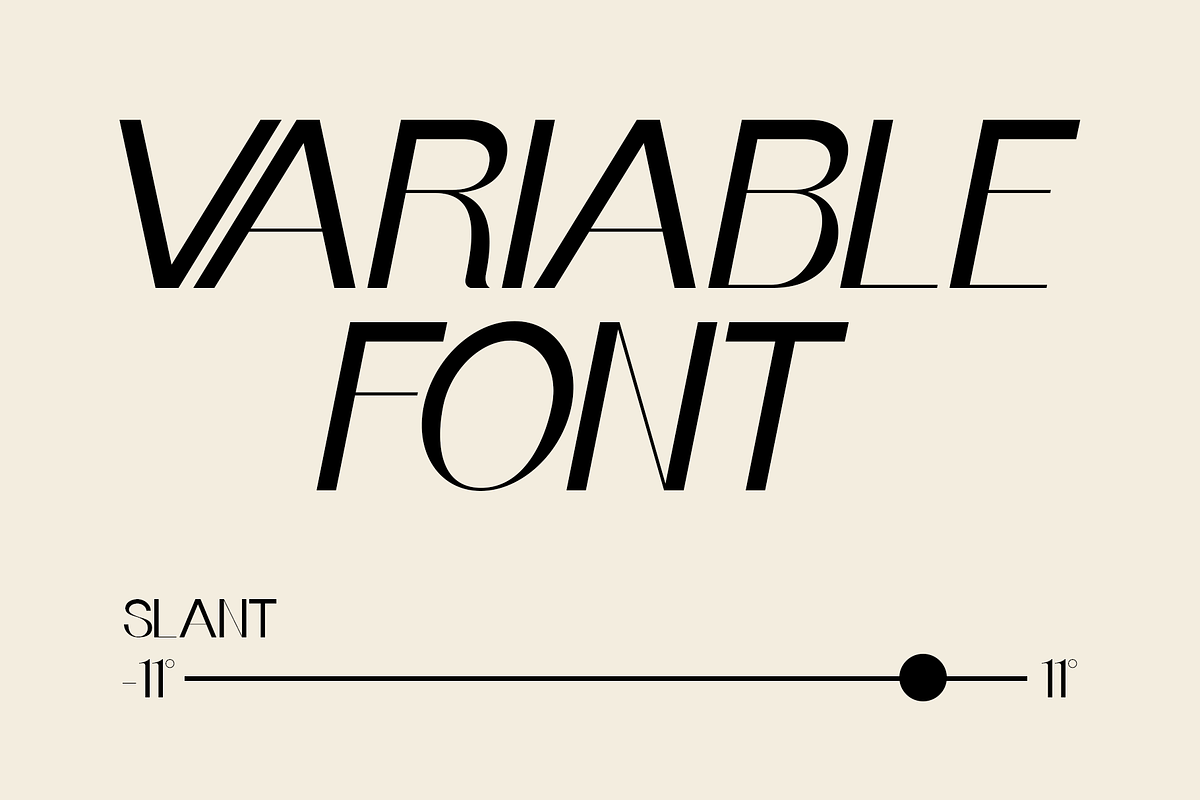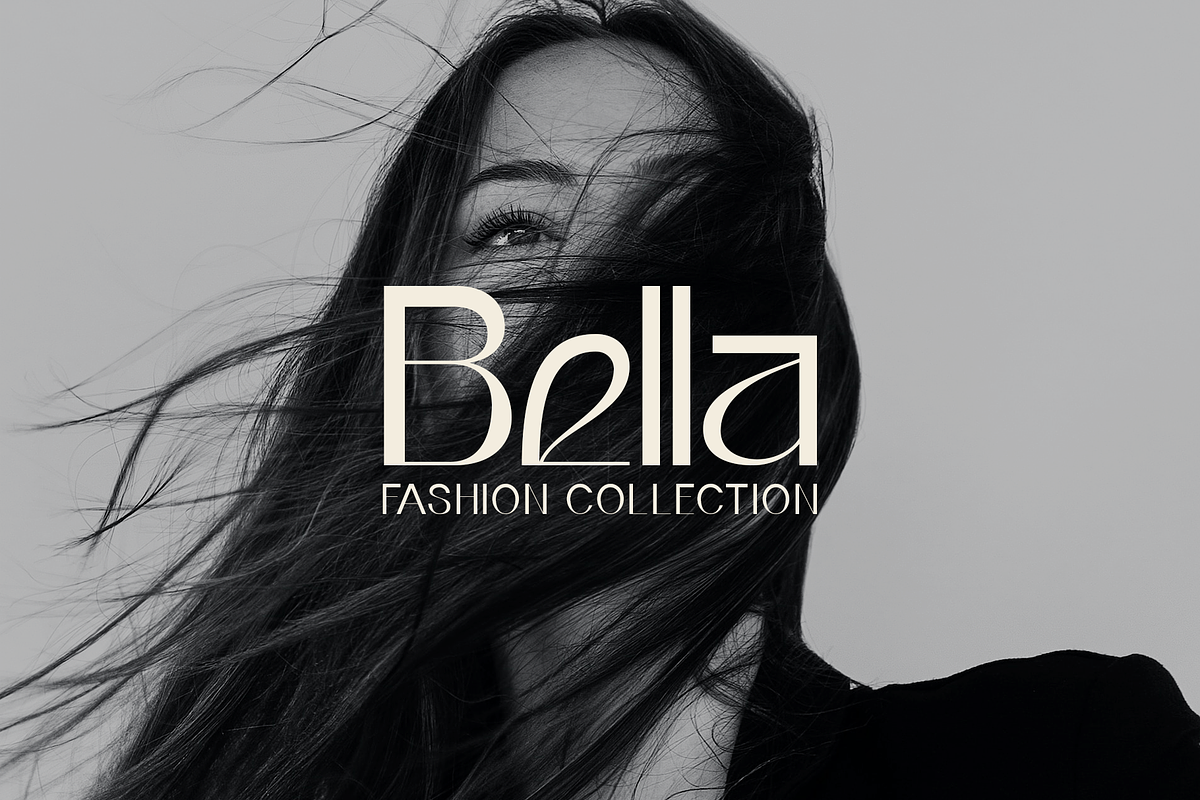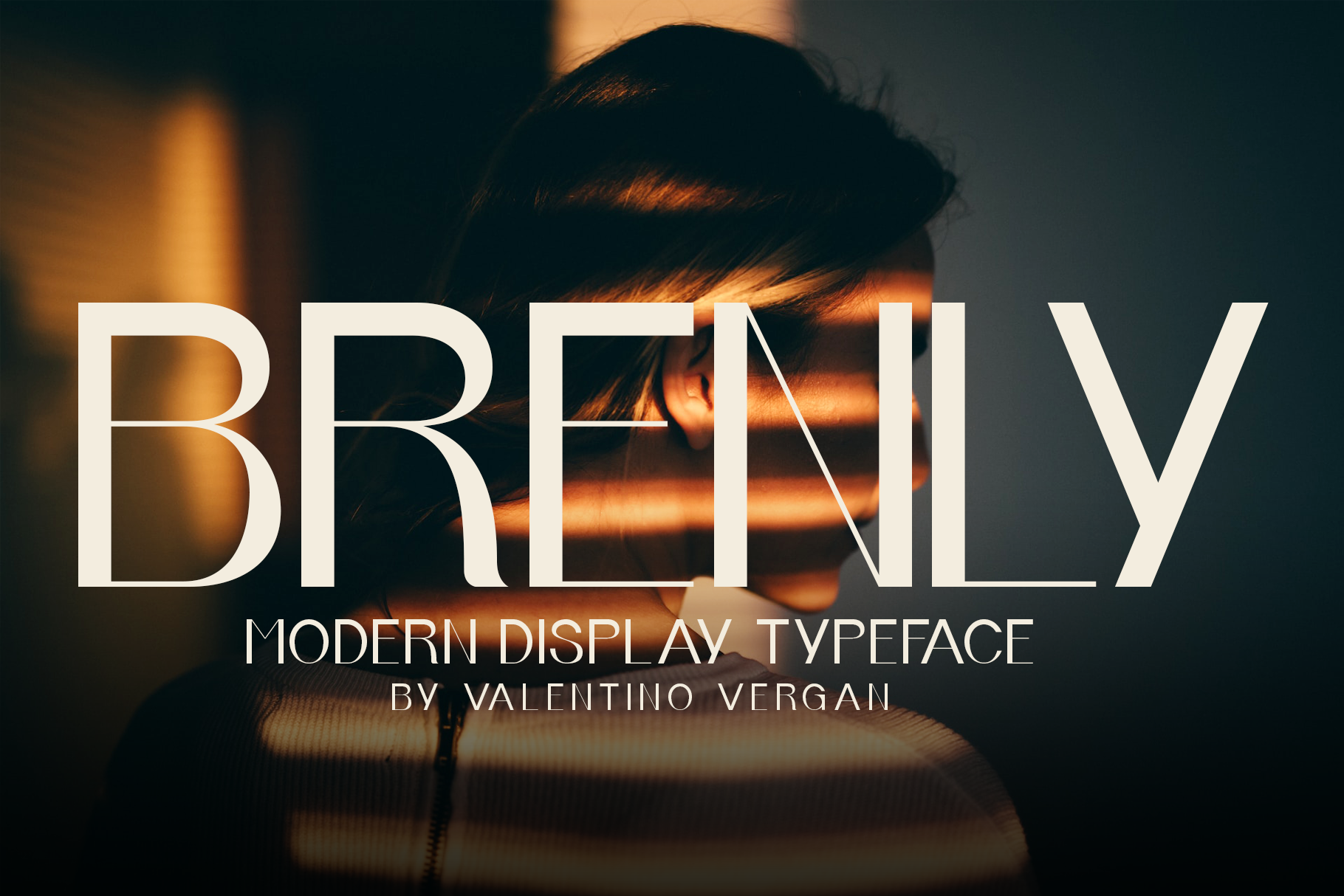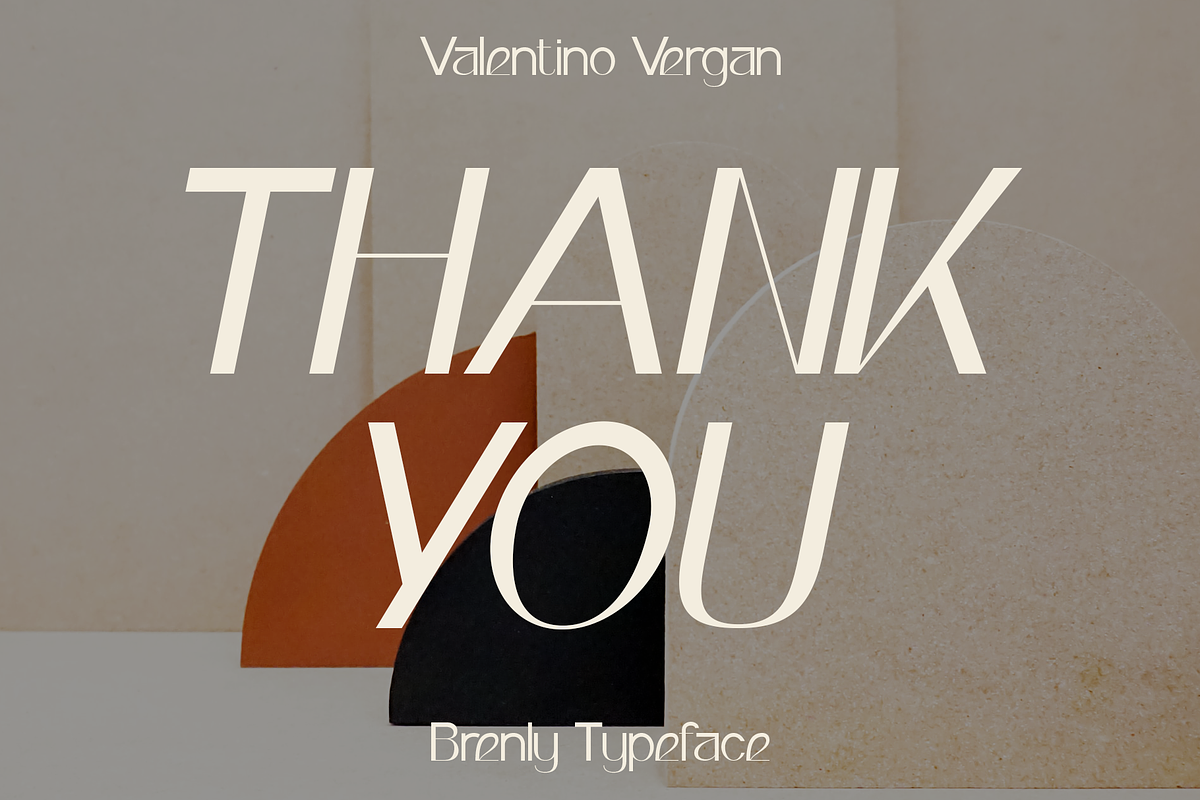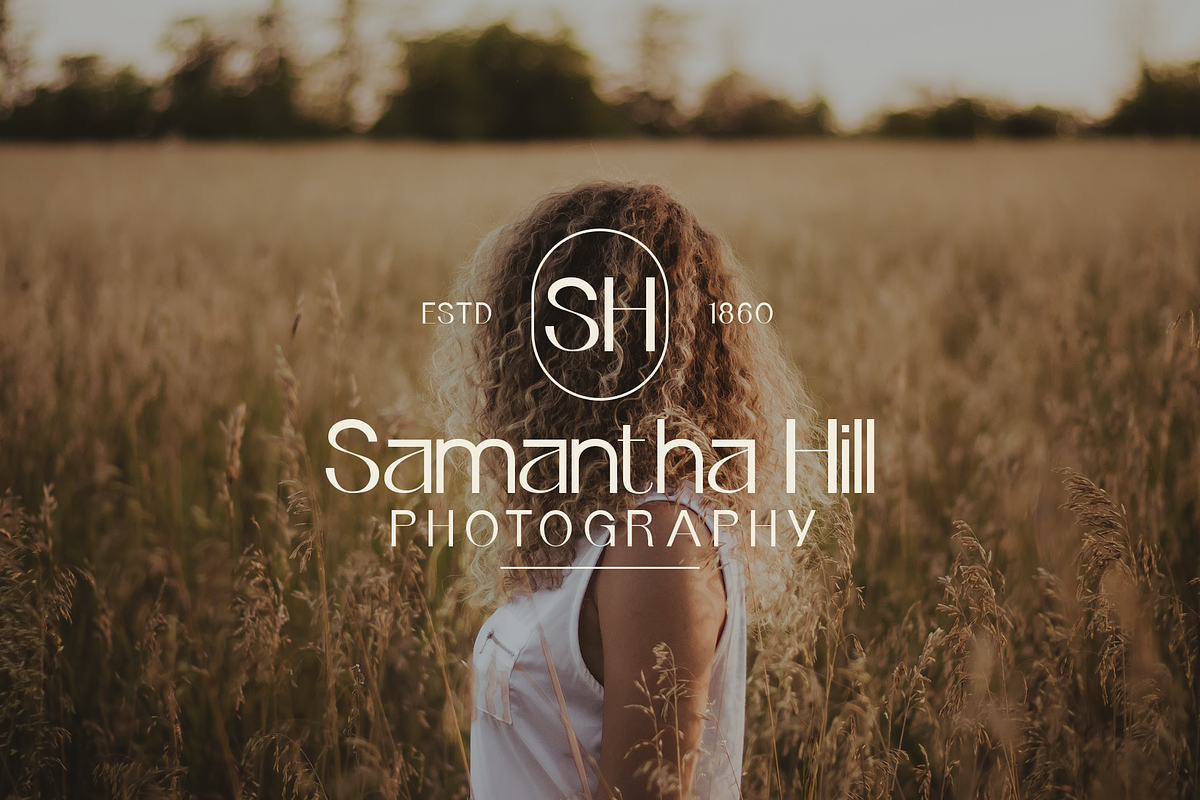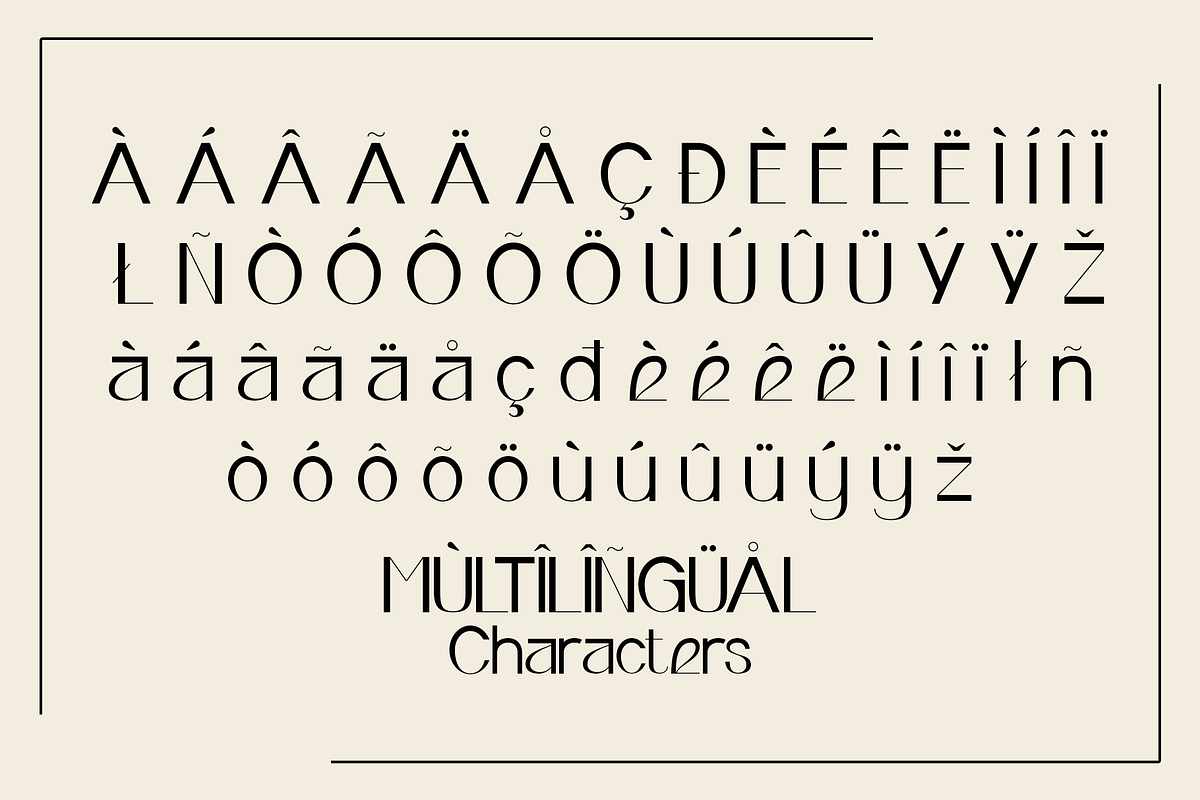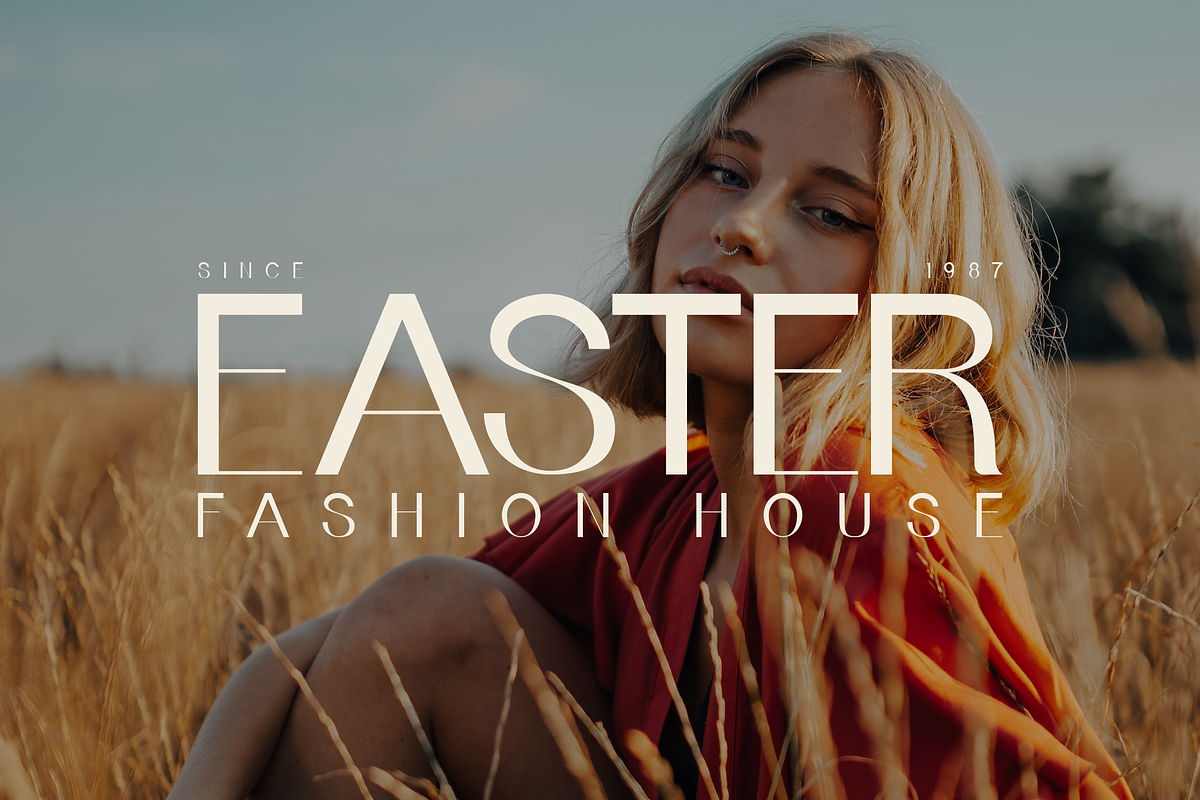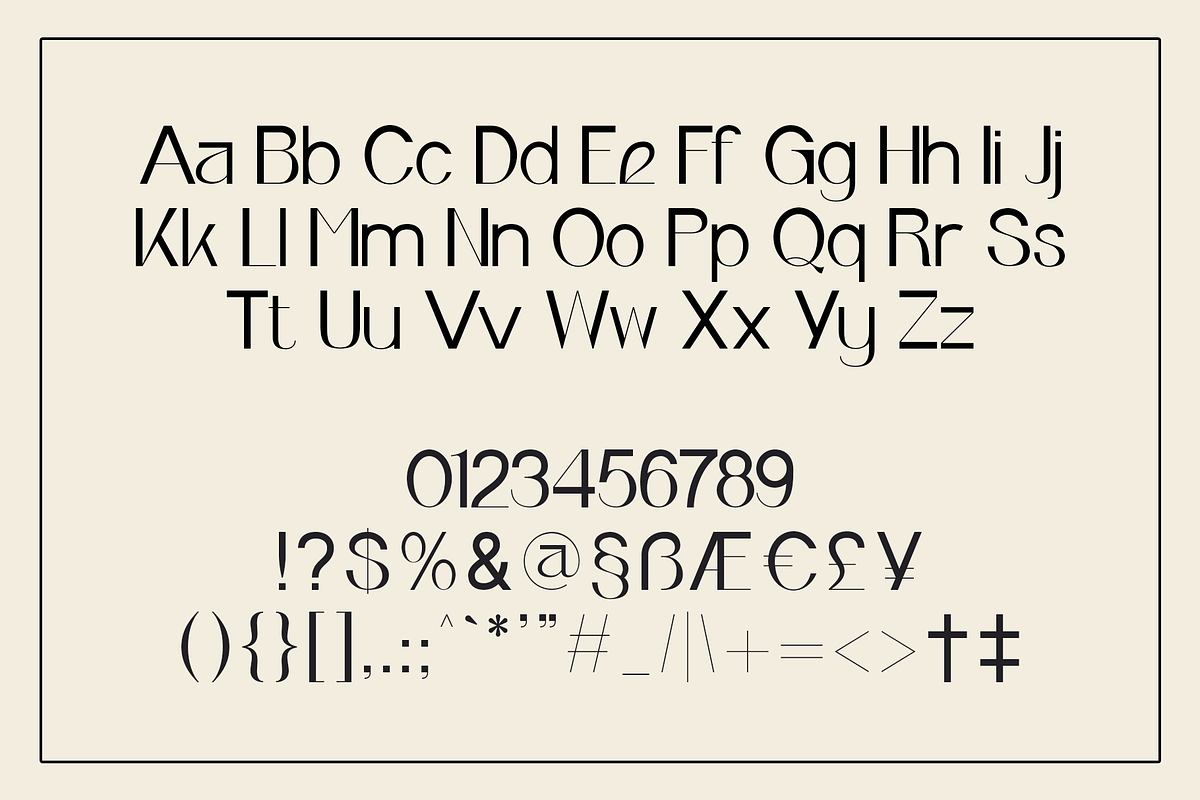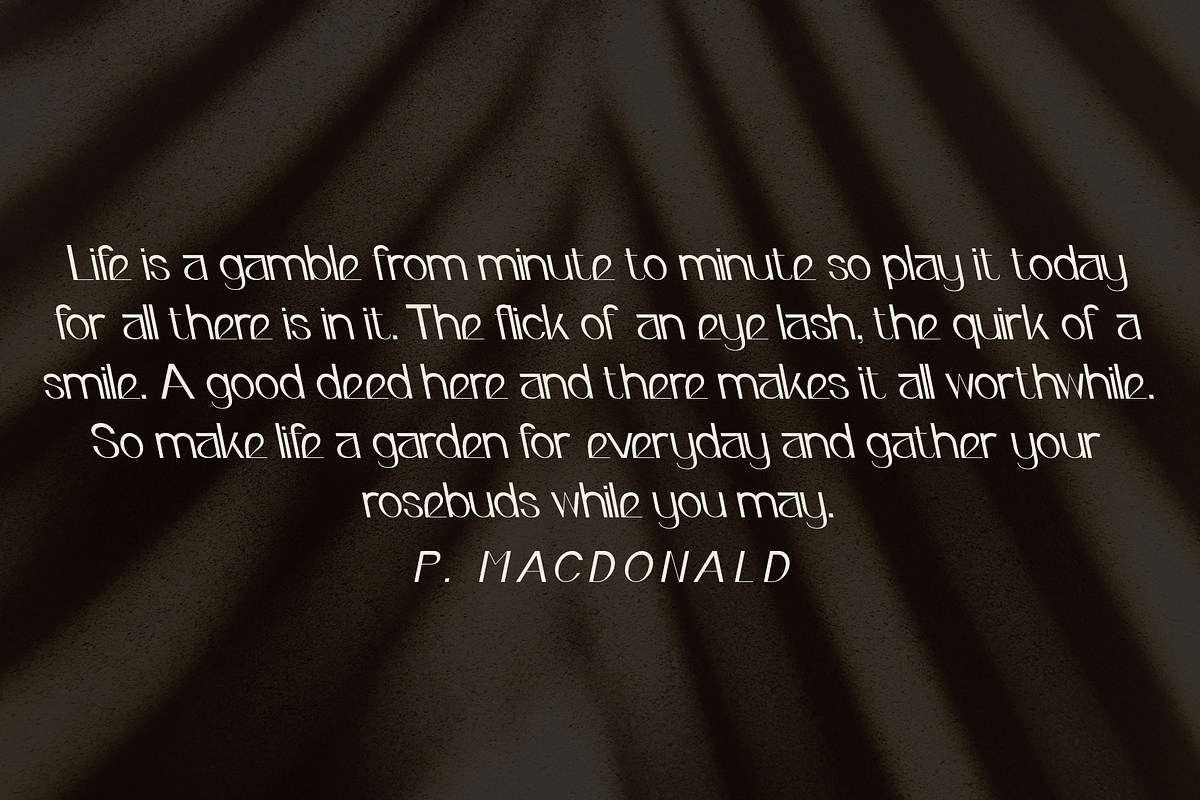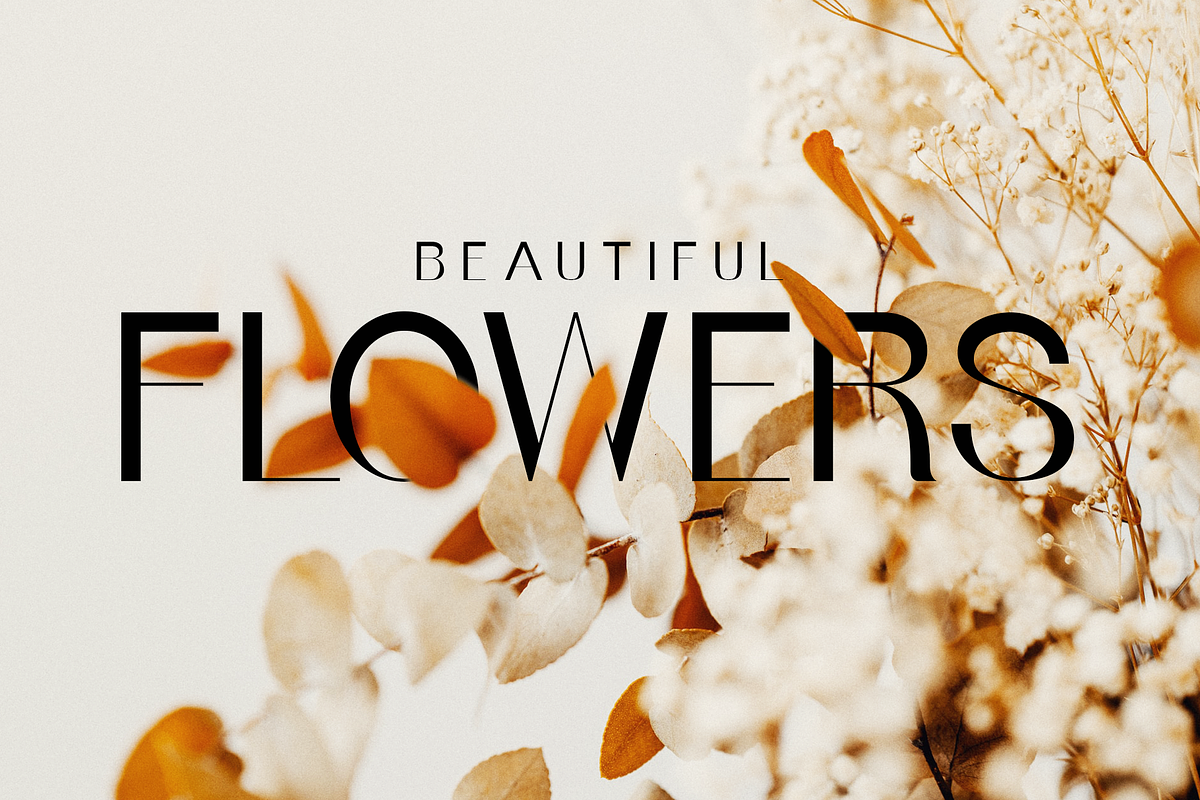
Brenly - Variable Font
Brenly is a modern variable sans serif font. Brenly has a unique and elegant look which makes it perfect for designing posters, brand packages & logos. Brenly also has a variable version, which makes it easy to manually adjust the slant from oblique to reversed oblique.
If you are looking for something modern and unique for your next project, Brenly is the font for you.
AVONICK INCLUDES A FULL SET OF:
- Uppercase and lowercase letters.
- Numbers.
- Punctuation.
- Ligatures.
- Multilingual Symbols.